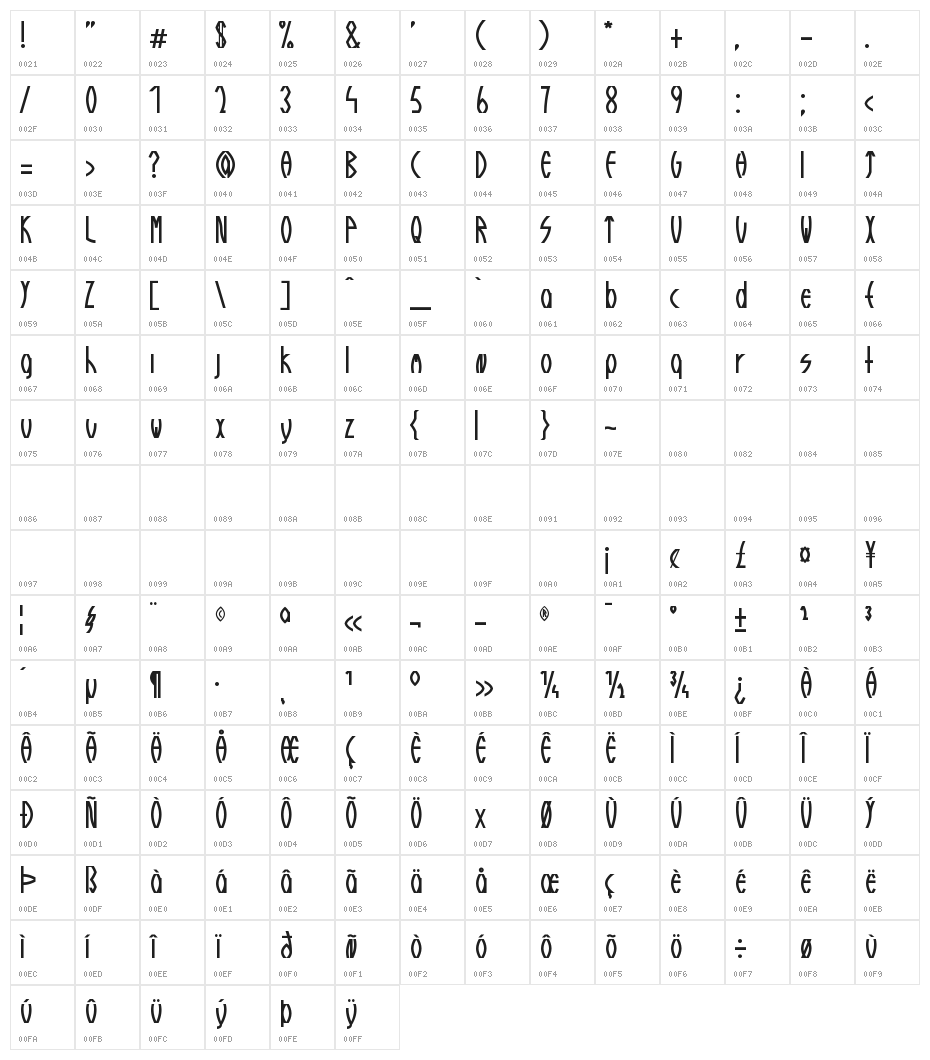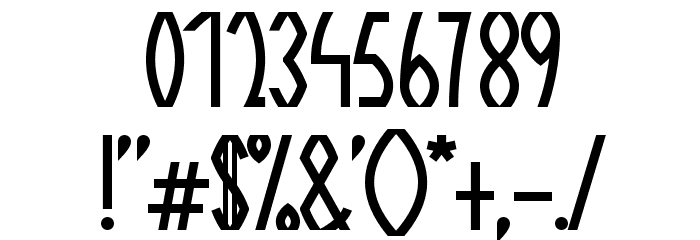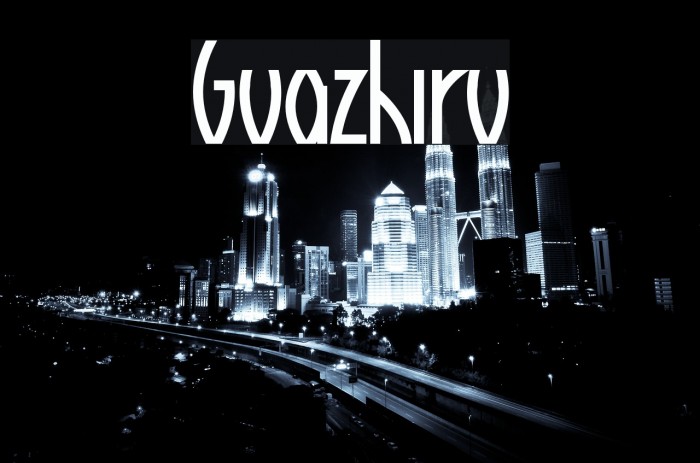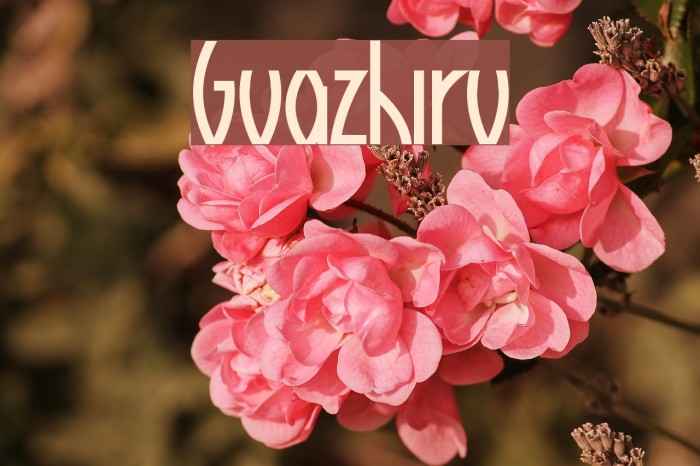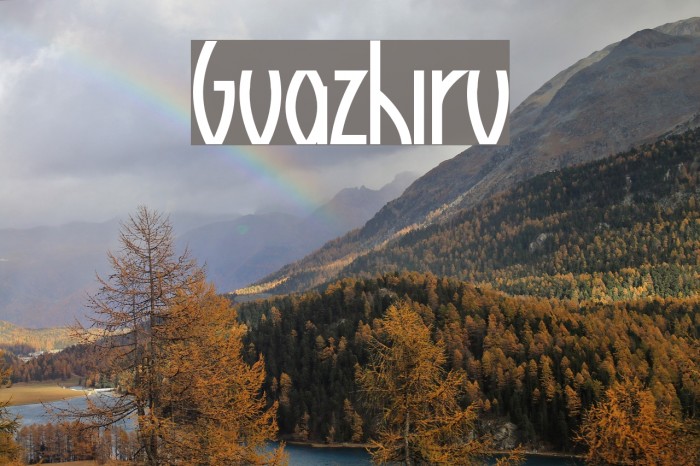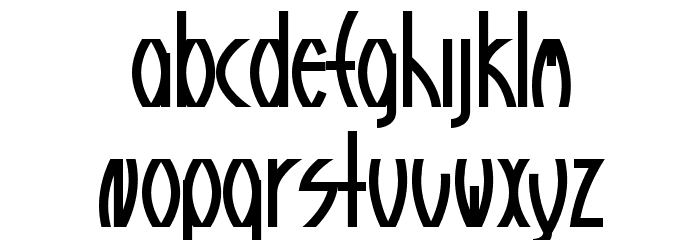
Guazhiru Font
Guazhiru Description
This font features a unique and bold design with sharp, angular lines and a geometric structure. The characters are tall and narrow, giving it a condensed appearance. The uppercase letters exhibit a strong presence with distinct, pointed edges, while the lowercase letters maintain a consistent style with slightly softer curves. The numbers and special characters follow the same angular theme, ensuring uniformity across the entire typeface. This font's striking design makes it ideal for eye-catching displays and creative projects.